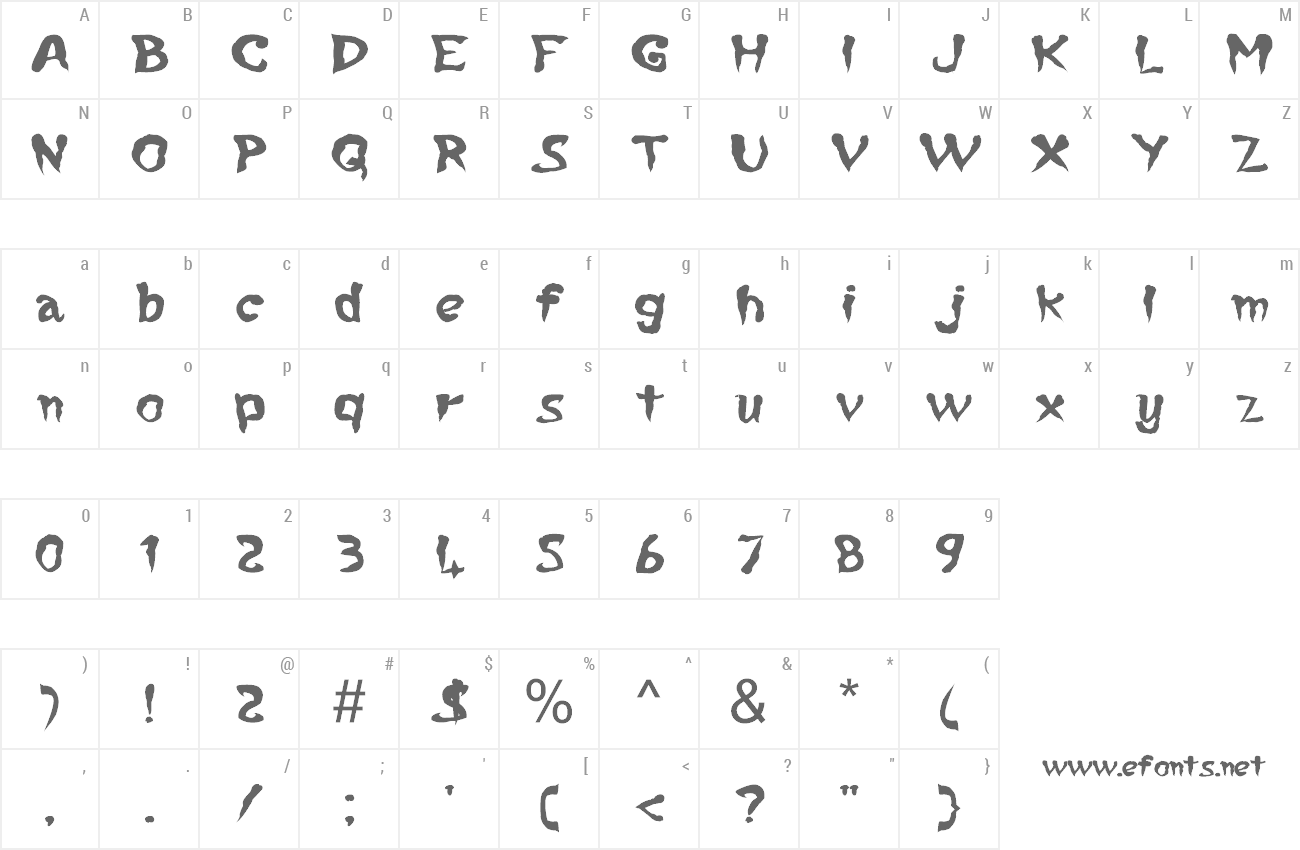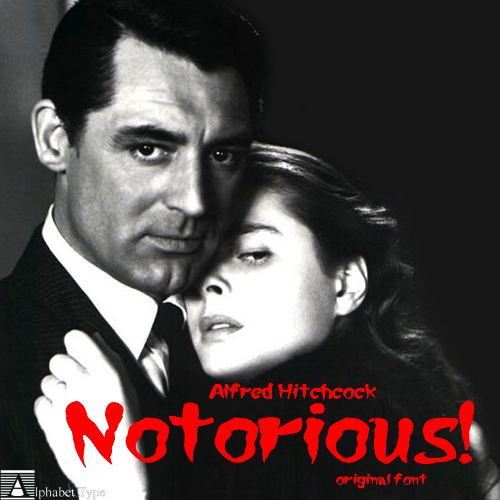
| Note by Alphabet & Type | |
| NOTORIOUS font: directly from the Best movie by Alfred Hitchcock, with INGRID BERGMAN and CARY GRANT, the original font for all lovers. |